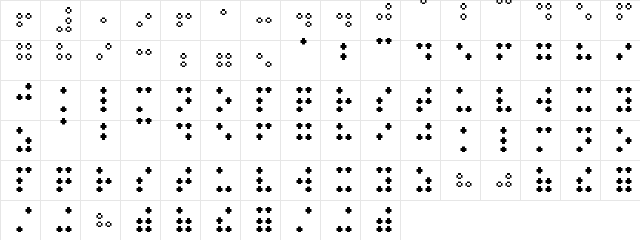
Braille Pixel HC Regular
| Designer | Roberto Mocci |
Design Context for Braille Pixel HC Typeface
Braille Pixel HC celebrates the constraints of early digital type, turning pixel geometry into a distinctive and immediately recognisable style.
A natural choice for retro game titles, chiptune music branding, 8-bit UI, and digital nostalgia projects.
Pro Tip: Pair Braille Pixel HC with flat colour palettes and simple geometric UI elements to reinforce its digital aesthetic.